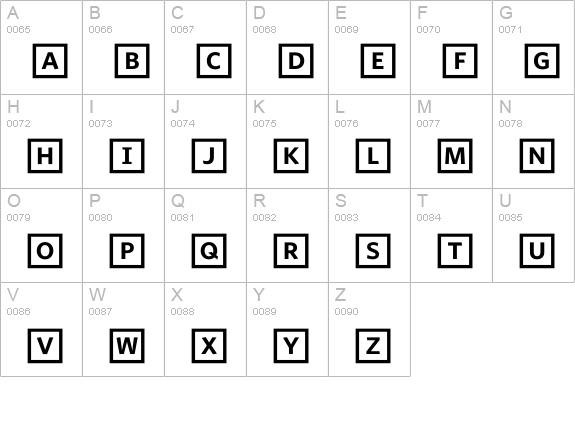
WhitneyIndexWhite-SquareBd font is a modern and stylish typeface that exudes elegance and sophistication. With its clean lines and bold square edges, this font is perfect for creating attention-grabbing headlines, titles, and logos. The strong presence of each letter gives your designs a strong and impactful visual appeal. The WhitneyIndexWhite-SquareBd font is meticulously designed, ensuring that every character is well-balanced and visually pleasing. Its versatility allows it to be used in various design projects, such as advertising, branding, packaging, and more. Whether you are creating a professional document or a creative poster, this font will effortlessly elevate your design to the next level. One of the best features of WhitneyIndexWhite-SquareBd font is that it is available for free download at FontsMarket.com. This means that you can access and use this font without any cost, making it an excellent choice for designers on a budget or those looking to experiment with different typefaces. The easy accessibility of this font allows you to add a touch of sophistication to your designs without breaking the bank. Overall, WhitneyIndexWhite-SquareBd font is a stunning and versatile typeface that will enhance your design projects. Its clean and bold aesthetic, combined with its free availability at FontsMarket.com, makes it a must-have for any designer seeking to make a lasting impression. So go ahead and download this font today to elevate your designs to new heights.